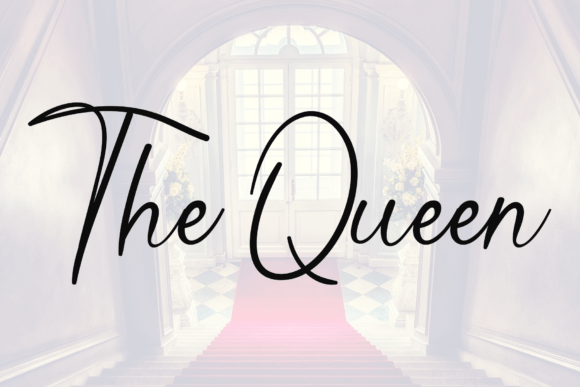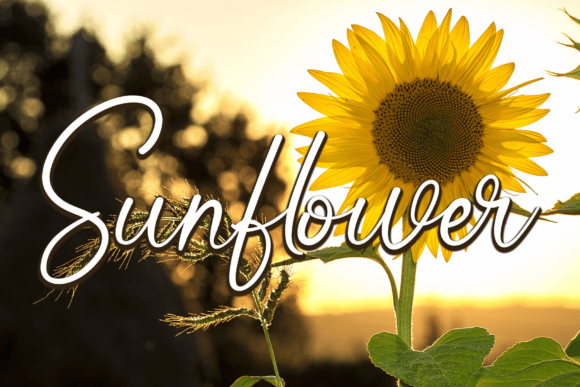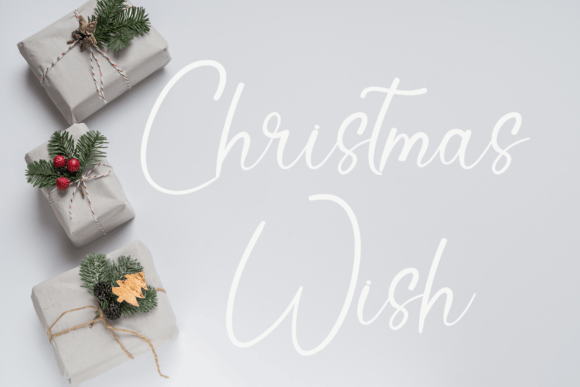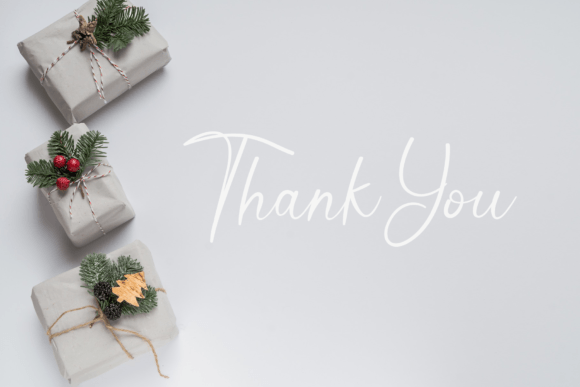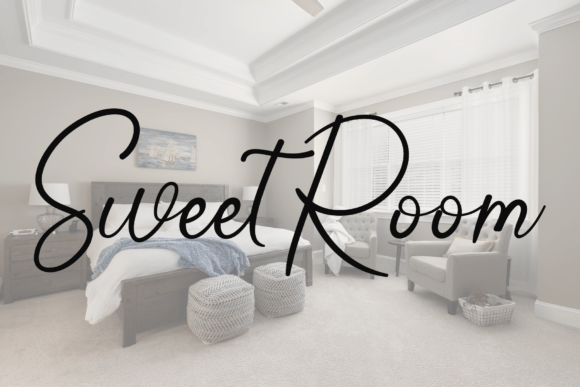
Red Carpet Font
About Red Carpet Font
The Red Carpet Font Download is a simple and versatile handwritten typeface that adds a natural and authentic touch to any design project. With its smooth strokes and minimalist charm, this font blends modern usability with the warmth of handcrafted lettering. Whether you’re creating greeting cards, posters, branding materials, or digital artwork, Red Carpet provides a clean and approachable look that enhances every design.
This handwritten style works well across many industries, from fashion and lifestyle to digital media and personal DIY projects. Its balanced proportions and clear readability make it a dependable choice for designers who want to combine elegance with simplicity.
Features of Red Carpet Font
The Red Carpet Font Download comes with a range of features that make it an essential tool for creatives:
• Clean and natural handwritten style
• Excellent readability for both large headlines and small text
• Versatile design suitable for modern and classic projects
• Smooth, balanced strokes with a personal feel
• Compatible with both print and digital applications
Best Uses for Red Carpet Font
Thanks to its flexible nature, the Red Carpet Font Download can be applied to a wide variety of creative projects, including:
• Greeting cards – Add warmth and personality to special messages
• Headlines and titles – Create bold, stylish text for posters or banners
• Branding and logos – Give your brand a natural handwritten touch
• Invitations – Perfect for weddings, birthdays, and other celebrations
• Digital design – Works well in social media graphics and websites
• Product packaging – Adds authenticity and charm to labels and boxes
• DIY crafts – Personalize handmade items with a unique handwritten style
Why Choose Red Carpet Font
The Red Carpet Font Download is more than just a handwritten typeface—it’s a design solution. Its simplicity makes it adaptable to many creative needs, while its personality ensures that your projects never feel generic. Designers value its balance between readability and style, making it a great choice for both professional branding and casual creative work.
Whether you are working on a digital campaign, a set of printed invitations, or handmade crafts, Red Carpet brings consistency and charm to your designs. Its approachable strokes make it especially effective for projects that need a personal, human touch.
The Red Carpet Font Download is a simple handwritten font that balances elegance with usability. With its versatile applications, from greeting cards and headlines to branding and packaging, this font is a must-have for any designer’s toolkit.